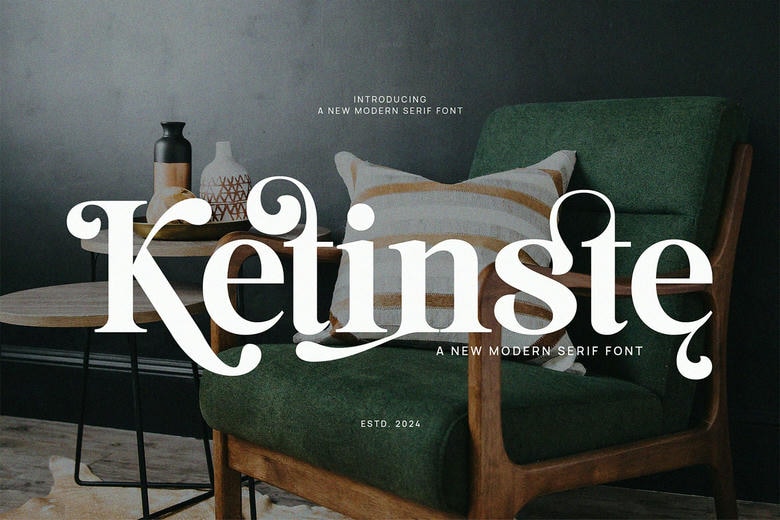
Ketinste Font
Ketinste Font is a striking blend of graceful form and modern design, built to bring elegance, clarity, and sophistication to any visual project. Characterized by soft curves, high contrast strokes, and delicate detailing,
Ketinste is a serif font that feels both timeless and fashion-forward. Ideal for business branding, editorial layouts, professional presentations, and timeless logos, it delivers a message with clarity and grace.
Ketinste Serif Font